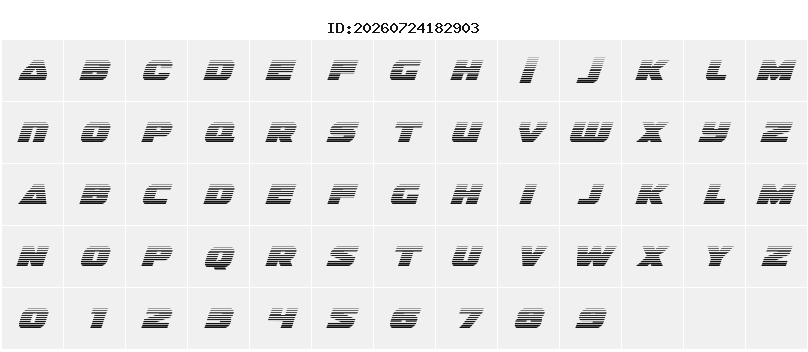
Guardian Gradient Italic Preview
• Font Name: Guardian Gradient Italic
• Full Font Name: Guardian Gradient Italic
About Guardian Gradient Italic.ttf
Guardian Gradient Italic.ttf is a modern, elegant sans-serif font designed for ultimate readability and visual harmony. Perfect for branding, headlines, web design, and print materials.